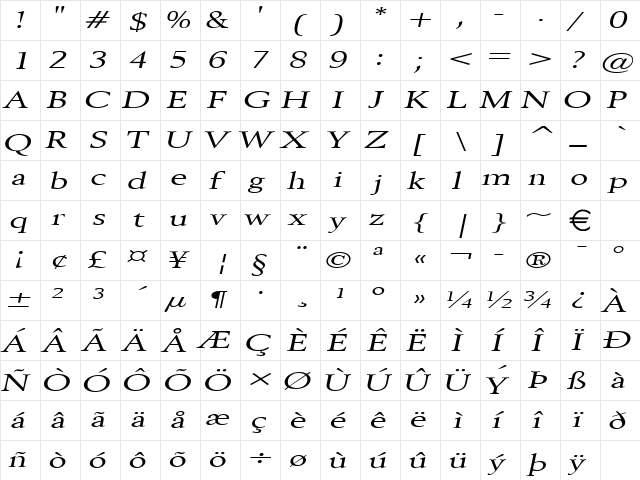
Revive8Extended Italic
Design Context for Revive8Extended Typeface
Revive8Extended is a composed and adaptable typeface that performs quietly and consistently across a wide range of design contexts. The slanted form adds forward momentum and visual energy.
Pro Tip: Try Revive8Extended for annotation and caption copy alongside an upright companion — the contrast in angle creates a dynamic but ordered typographic system.